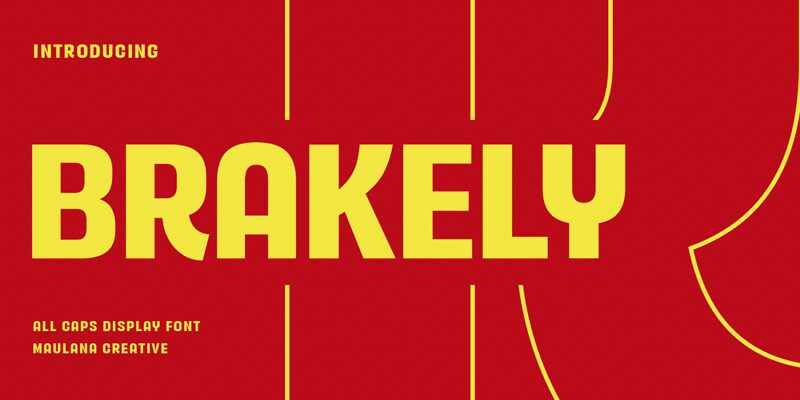
Maulana Creative’s Brakely font is an audacious and arresting sans-serif typeface that carries an air of modernity refinement. Any text becomes more interesting when written in this font because of its bold forms and strong character; it will work well as a logo, heading or any other design element aimed at attracting attention. The heavy weight gives a feeling of power and confidence while clean geometrical shapes create smooth polished appearance.
Brakely can fit into different design environments without looking out of place thanks to its versatility. This means that even though we may use it for eye-catching displays or product packaging during attention-hungry advertising campaigns with modern vibes… the legibility and elegant nature also allow us to utilize this font for corporate communications through digital interfaces like editorials where professionalism matters most alongside clarity requirements.